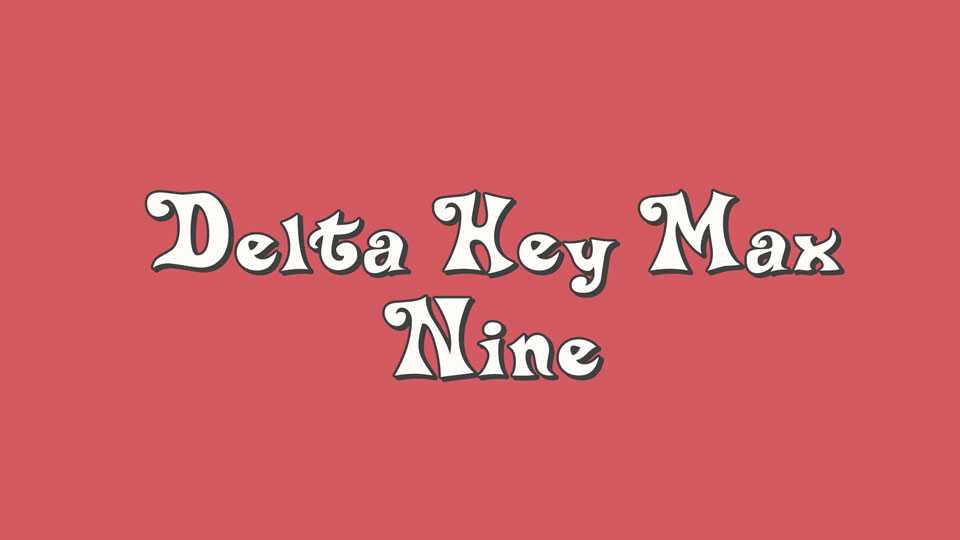
Download Delta Hey Max Nine font, a wacky, retro curly display typeface with a delightfully low-effort appearance that’s perfect for conveying a lighthearted and fun message.
Designer: Typodermic Fonts